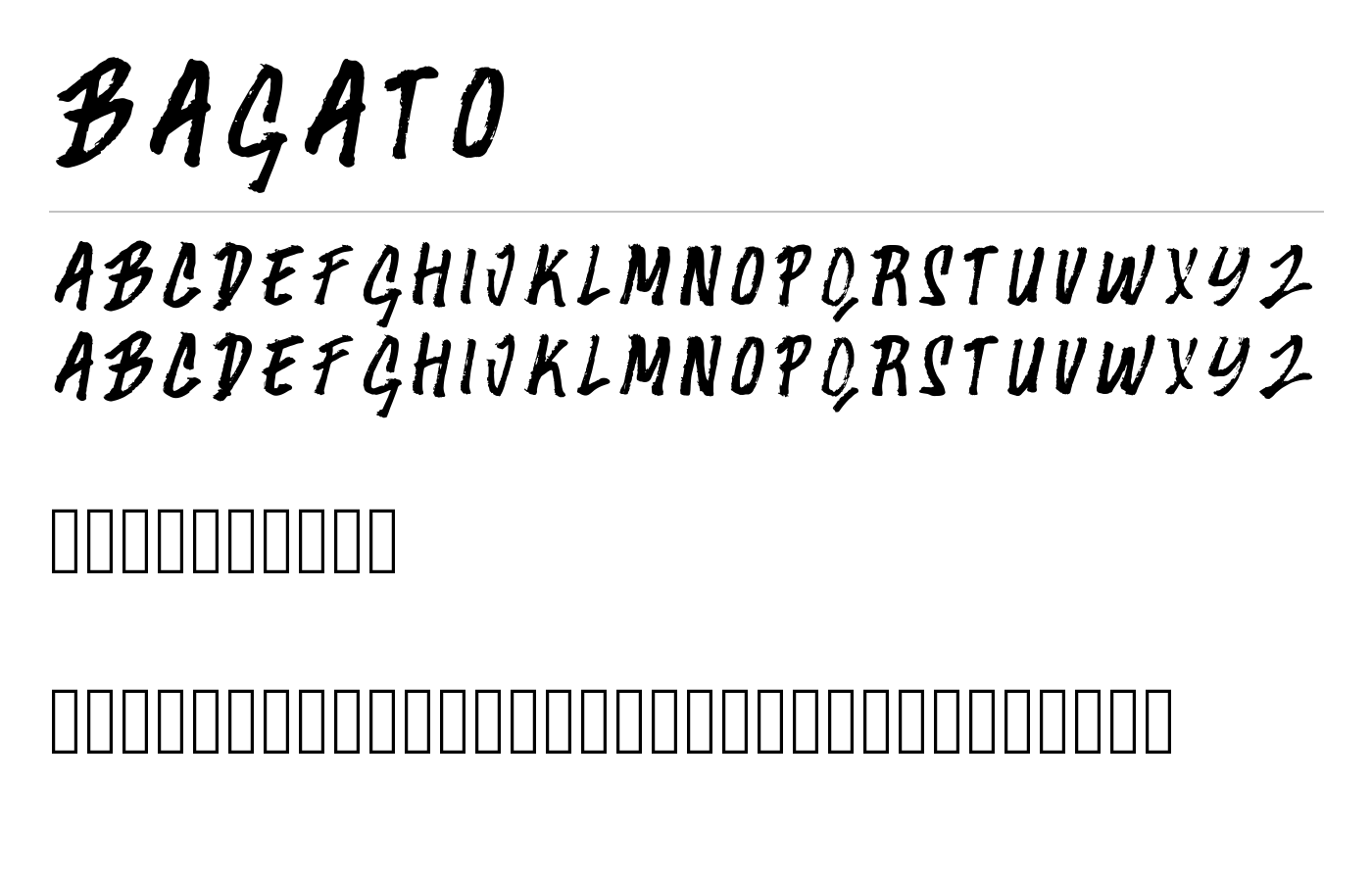
Bagato is a bold, brush-script style font that exudes an energetic and handcrafted feel with its rough, textured strokes and casual flair. Its dynamic letterforms and uneven edges make it ideal for creative, informal branding, logos, posters, and packaging that seek a lively, artistic vibe. This font works best in display settings where its expressive personality can stand out and add a unique touch.
Bagato Font